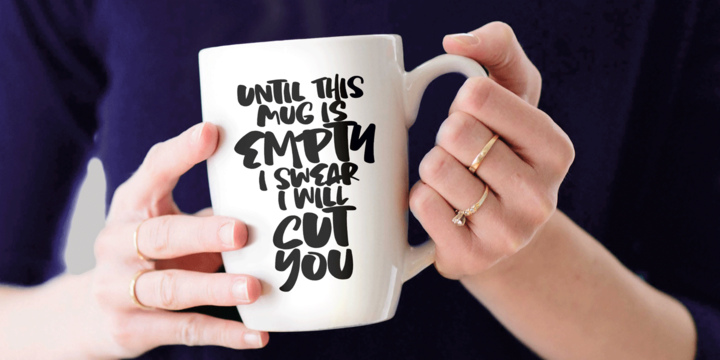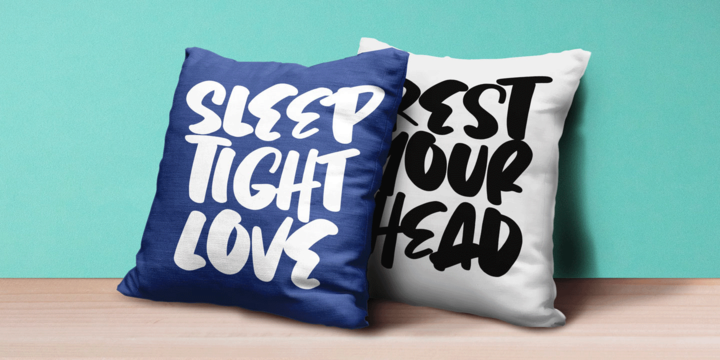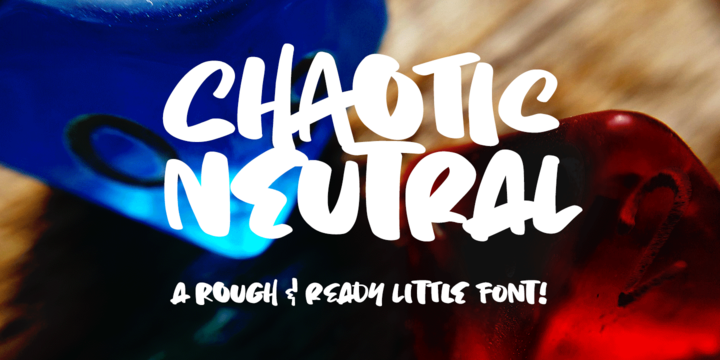
Chaotic Neutral Brush Font
I’m letting my inner nerd show through on this one: “Chaotic Neutral” is a Dungeons & Dragons thing. But the name applies to this font, too!
Chaotic: This font has all sorts of built-in irregularities. Some variation in letter heights and letter widths, and the stroke widths are all over the place. It’s all about the hand-written messiness.
Neutral: And yet! I’ve smoothed the strokes a bit, and gone for as few nodes on each letter as I can (while still keeping a bit of roughness), so this font can be used for any kind of purpose — not just print, but cutting out as well!